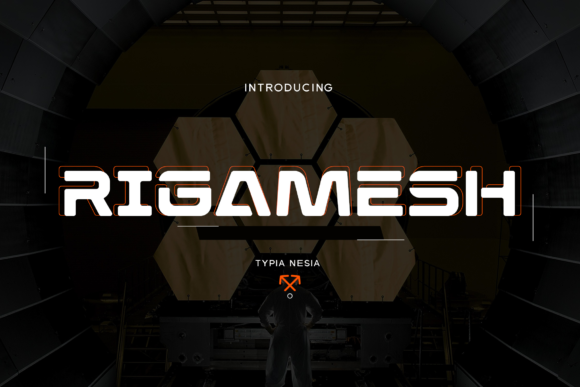
Journey into the captivating world of Rigamesh Font, a bold and magnificent display font from the creative minds at Typia Nesia. This mesmerizing font exudes strength, confidence, and dynamism, ready to infuse your designs with a striking and stylish aura.
Rigamesh's bold and assertive characters command attention, leaving an unforgettable impression wherever they appear. Its clean and sharp lines convey a sense of sophistication and modernity, making it the perfect choice for a wide range of projects. From powerful headlines and eye-catching logos to dynamic posters and engaging social media graphics, Rigamesh is a versatile font that elevates your designs to new heights.
Dive into the myriad possibilities that Rigamesh Font offers. Its robust structure and unyielding presence make it ideal for projects that demand attention and impact, such as posters, flyers, and advertisements. Unleash your creativity and let Rigamesh's bold strokes bring your designs to life with an unforgettable charm.